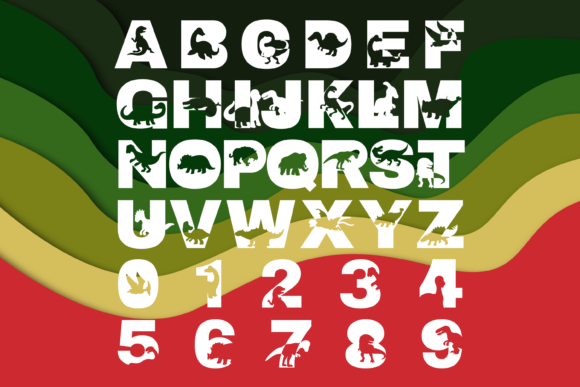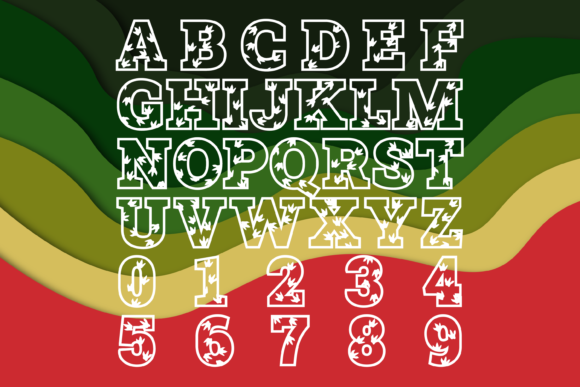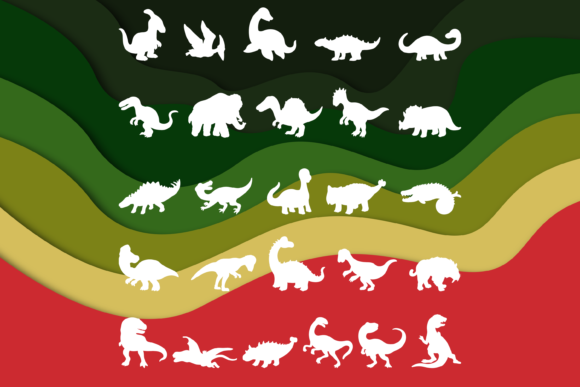
Dino World Trio Font: The Ultimate Choice for Fun and Creative Designs
Are you a designer, crafter, or simply someone who loves to create fun and engaging content? Look no further than the Dino World Trio Font! This amazing font comes in three styles – sans serif, serif, and dingbats – making it the perfect choice for a wide range of projects, from cartoon-related designs to children’s games and more.
What is Dino World Trio Font?
Dino World Trio Font is a unique and versatile font that is sure to add a touch of excitement to any design. The font comes in three styles:
- Sans Serif: A clean and modern font that is perfect for titles, headings, and short paragraphs of text.
- Serif: A classic font with a touch of elegance, ideal for longer blocks of text, articles, and storytelling.
- Dingbats: A fun and quirky font that features a range of icons, symbols, and illustrations, perfect for adding visual interest to your designs.
Why Choose Dino World Trio Font?
So, why should you choose Dino World Trio Font for your next project? Here are just a few reasons:
- Unique and Fun: The Dino World Trio Font is unlike any other font out there. Its fun and playful style is sure to capture the attention of your audience and leave a lasting impression.
- Versatile: With three styles to choose from, you can use the Dino World Trio Font for a wide range of projects, from children’s books to games, posters, and more.
- Easily Readable: The sans serif and serif styles of the font are designed to be easily readable, making it perfect for both digital and print designs.
- Scalable: The font is designed to be scalable, so you can use it for a variety of projects, from small icons to large billboards.
Use Cases for Dino World Trio Font
The Dino World Trio Font is perfect for a wide range of projects, including:
- Cartoon-related Designs: The fun and playful style of the font makes it perfect for cartoon-related designs, such as character designs, posters, and animations.
- Children’s Games: The font is ideal for children’s games, including titles, instructions, and game boards.
- Crafting and DIY Projects: The font is perfect for crafting and DIY projects, such as signs, labels, and tutorials.
- Digital Designs: The font can be used for a variety of digital designs, including social media graphics, blog posts, and website headers.
Tips for Using Dino World Trio Font
Here are a few tips for using the Dino World Trio Font:
- Mix and Match: Don’t be afraid to mix and match the different styles of the font to create a unique look.
- Use the Dingbats Font for Visual Interest: The dingbats font is perfect for adding visual interest to your designs. Use it to create icons, illustrations, and more.
- Experiment with Colors: The Dino World Trio Font looks great in a variety of colors. Experiment with different colors to find the perfect look for your design.